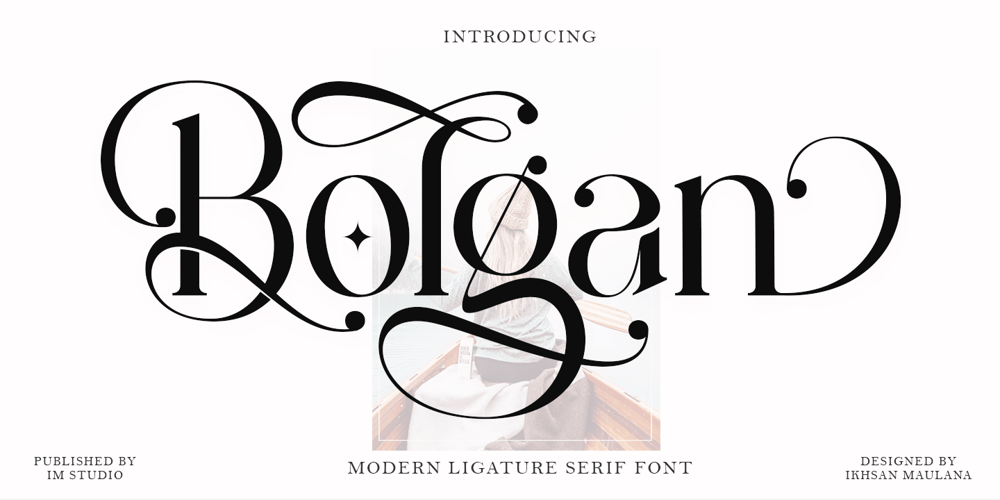
Bolgan. Font Family was designed by Ikhsan Maulana and published by IM Studio. Bolgan. contains 6 styles and family package options. Luxurious Bolgan serif with an elegant serif font style with a unique character by combining geometric shapes with organic curvy details. This is a unique typeface for your personal personality. Inspired by old style serifs and contemporary serif fonts. The extreme contrast between thick and thin strokes gives a harmonious and stylish look. The elegance and sensuality of serifs are enhanced by binding, alternating, and sweeping.Bolgan Features:multilingualPUA encodedalternativebinder.Perfect for a variety of uses. From greeting cards to magazines, wedding invitations, logos to websites etc.To be able to access alternative fonts, make sure the software you use can support opentype features such as Microsoft Word, Paint, Adobe, Corel draw, Cricut and other applications.If you need any help please contact me ๐